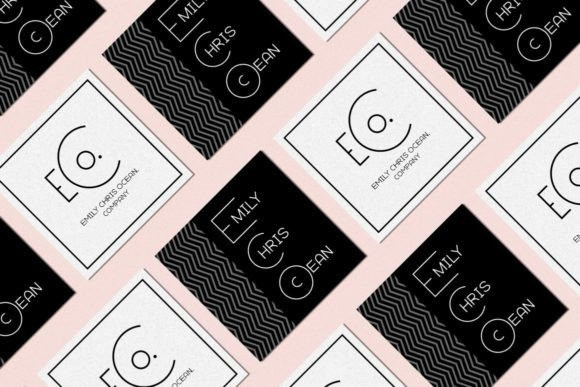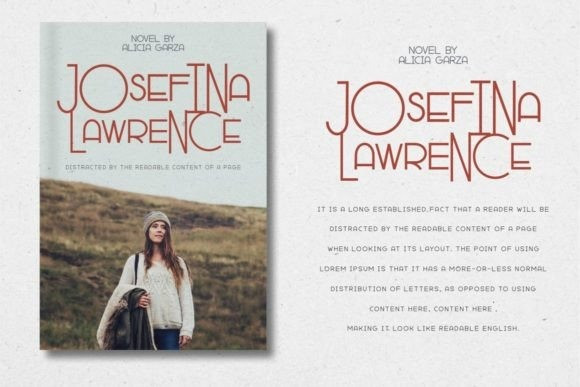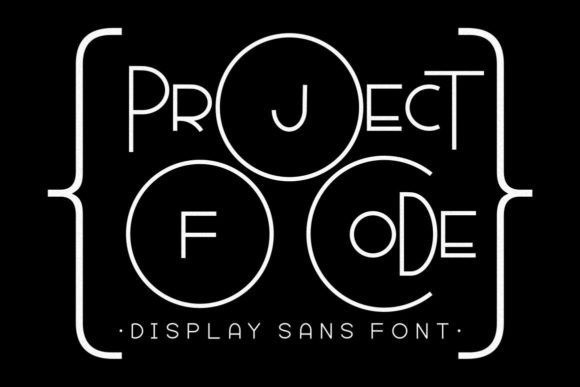
Project Of Code Font
Project Of Code Display Font is a stylish and cool display font. Incredibly versatile, this font will suit a wide pool of design ideas! Project of Code is PUA encoded which means you can access all the glyphs and ligatures with ease!